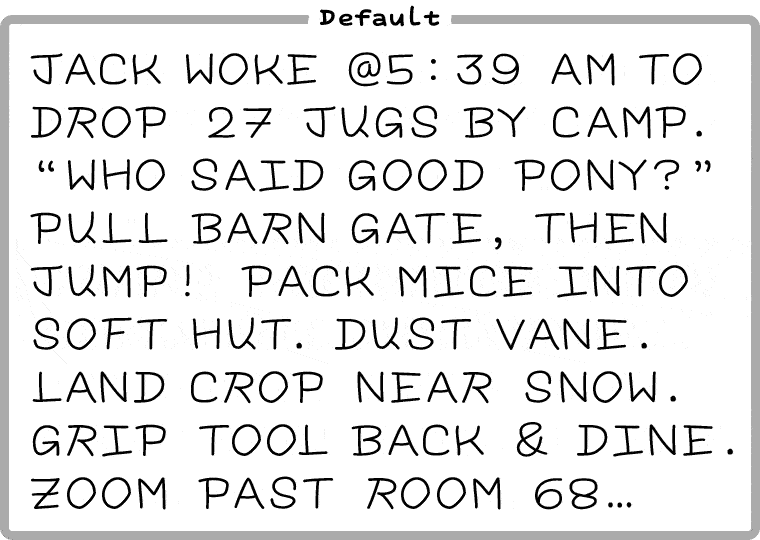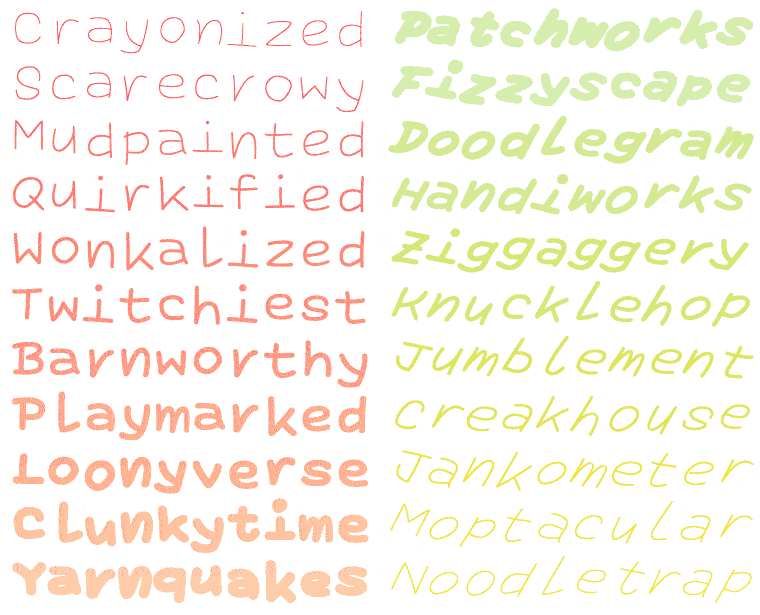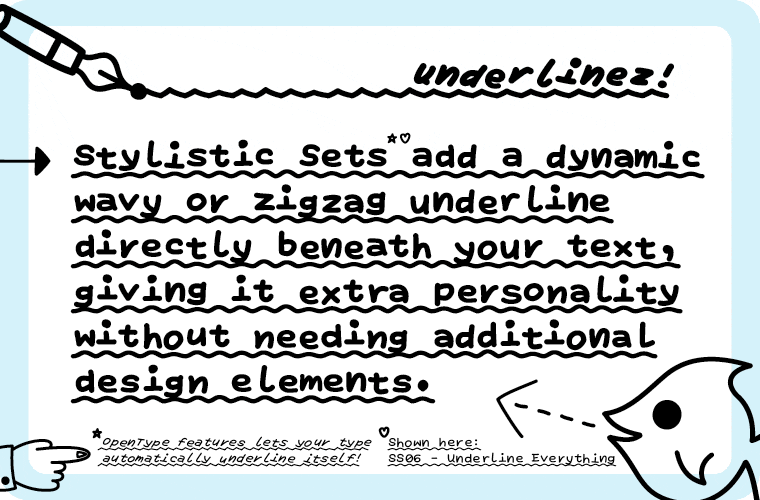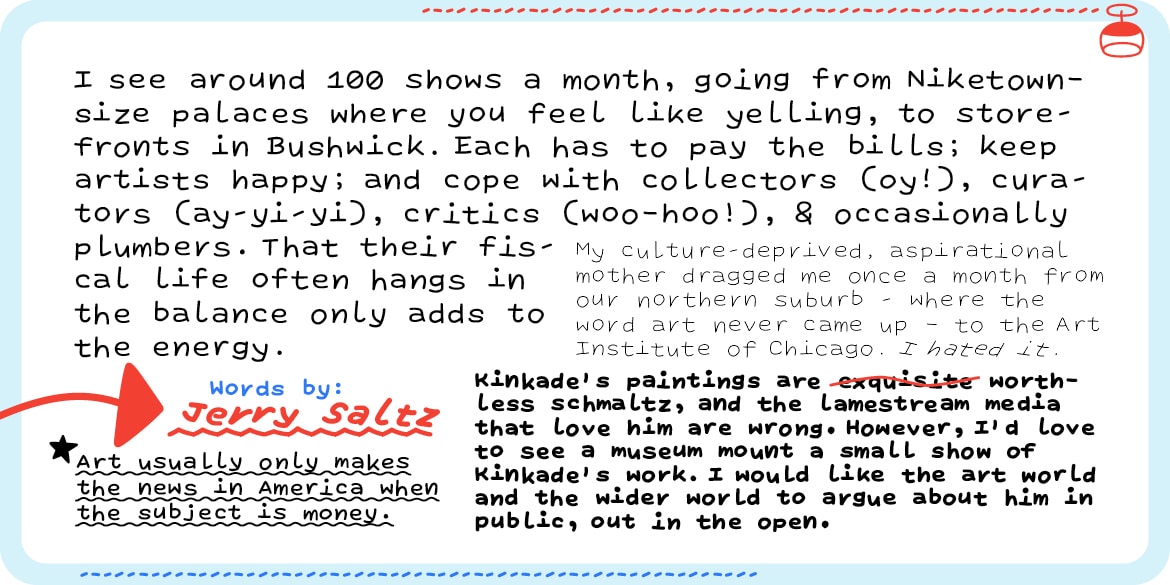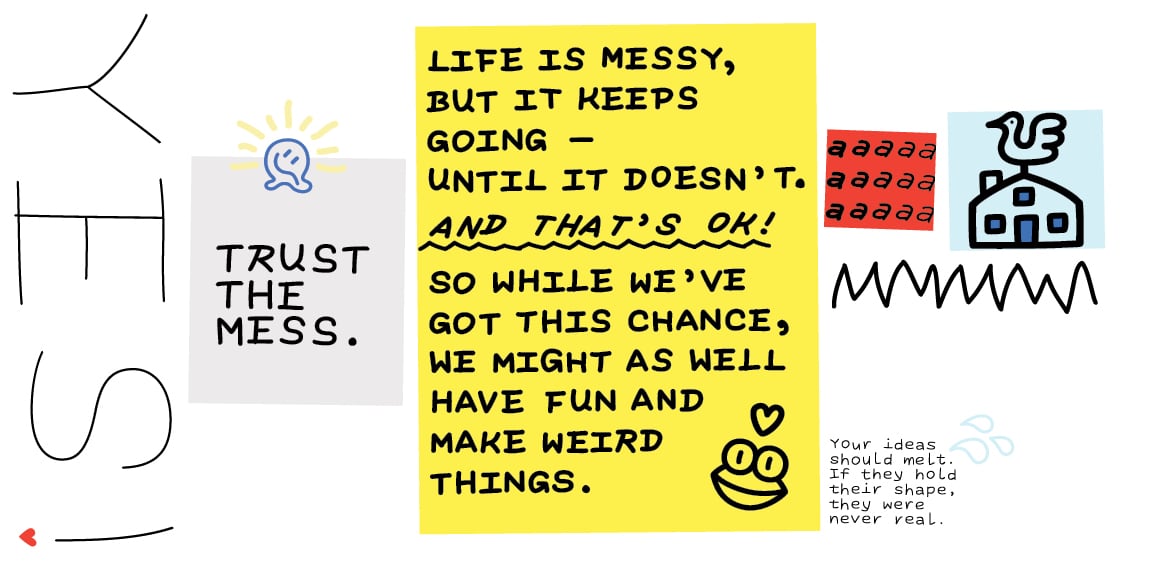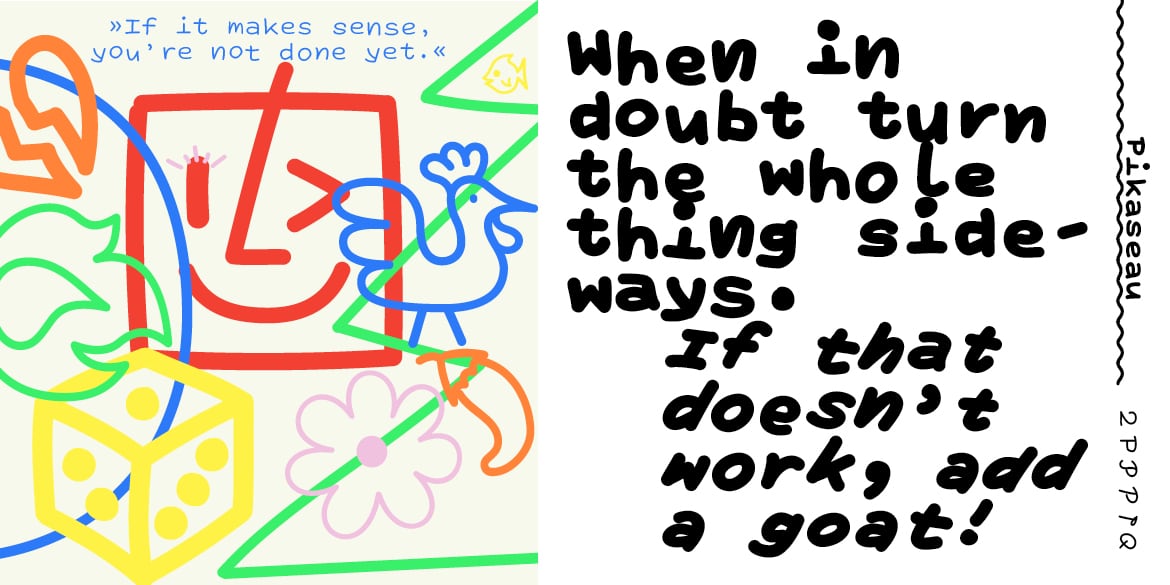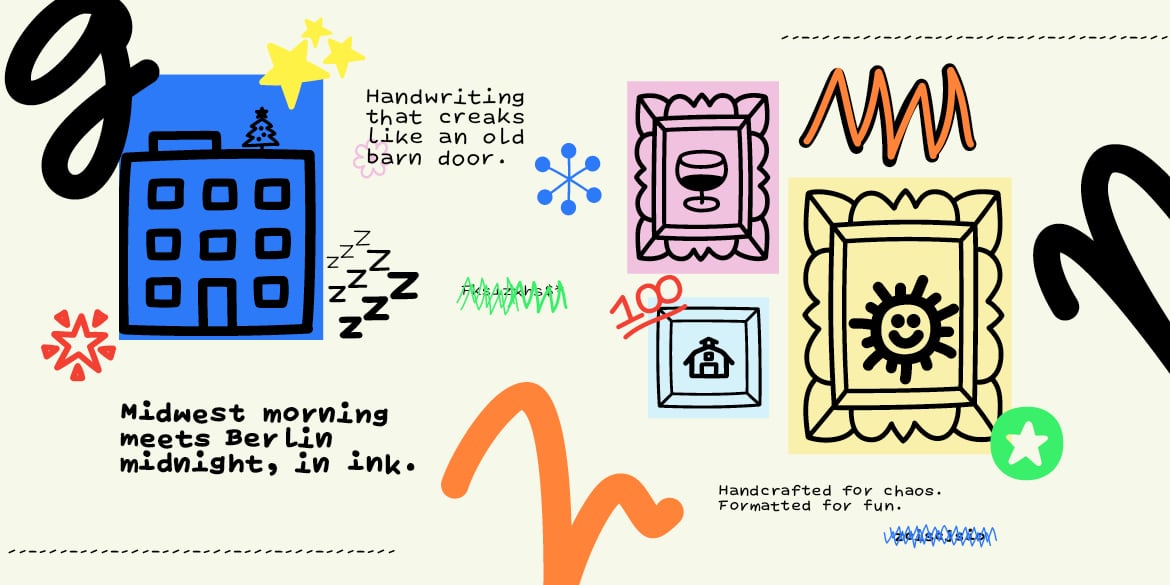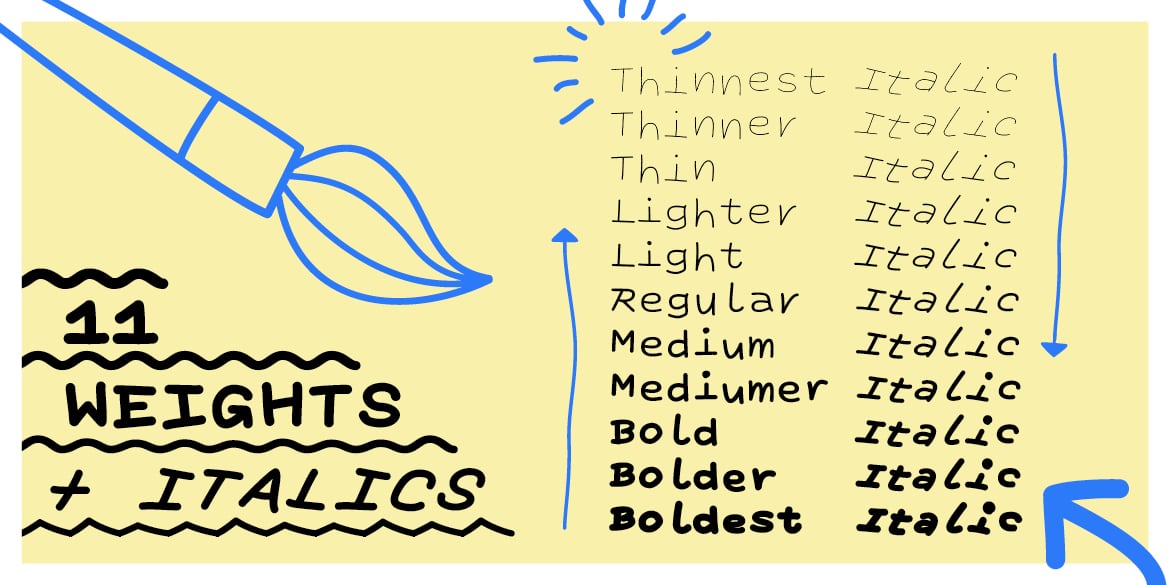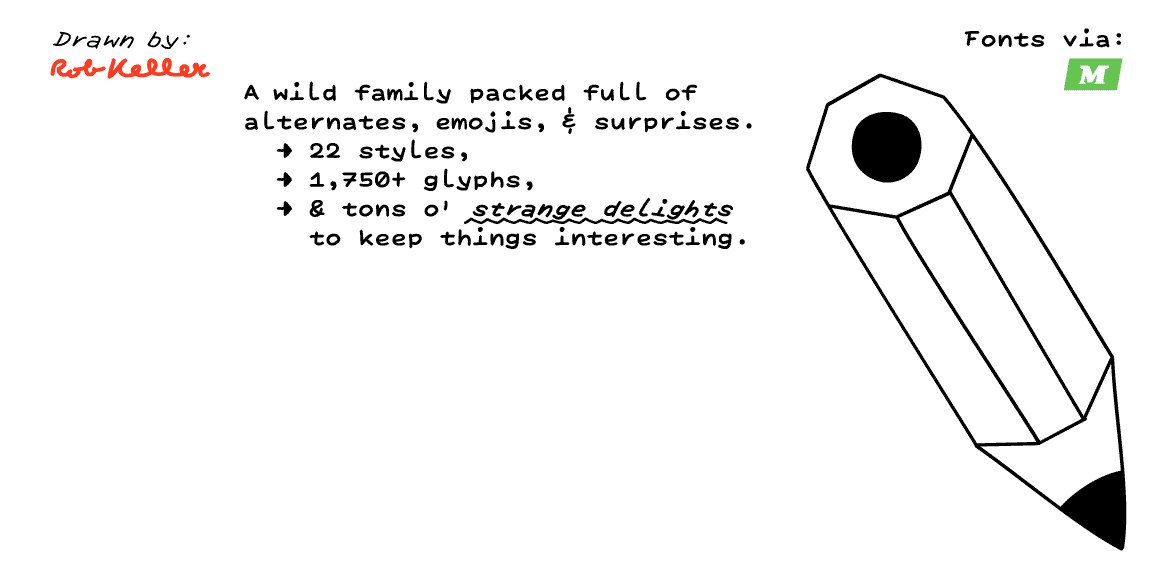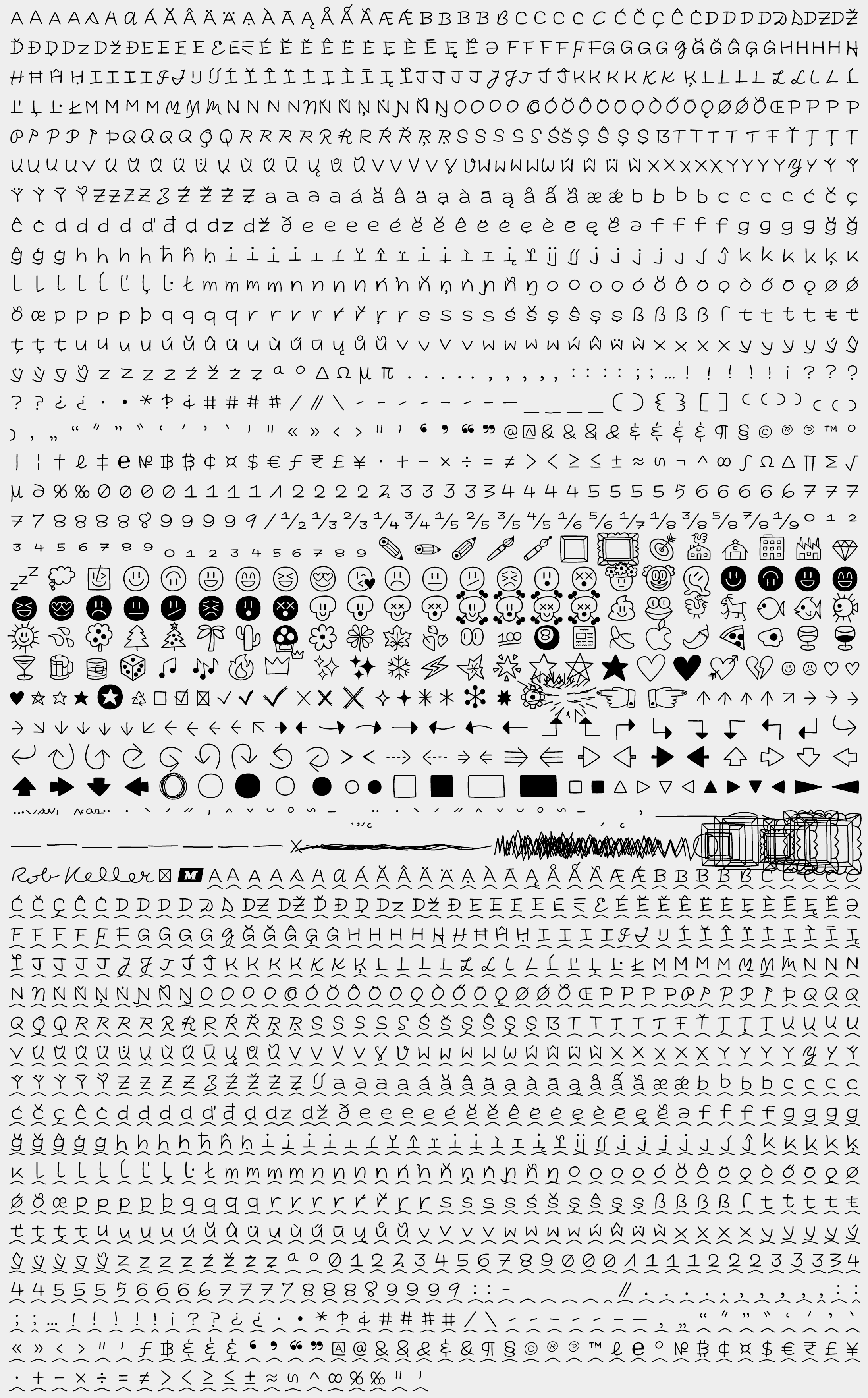
A Hand-Drawn Font by Mota Italic
This is A Hand-Drawn Font™ – a wild typographic experiment where imperfection meets innovation. It isn’t just another quirky handwriting font, it’s a toolkit for designers who are bored of playing it safe and ready to get weird.
“Looks Like It Was Made by a Human”… Because It Was.
A Hand-Drawn Font started as handwritten markings on tools and sketchbooks so they wouldn’t get lost. That everyday scrawl, from an undiscovered artist, was never planned to become a typeface. But while working on a personal zine project, he began converting those distinctive letters into a font — and over two years, they slowly evolved into this massive family. A Hand-Drawn Font carries all that history & personality, and now it’s expanded into eleven weights and jam-packed with features, it’s ready for whatever you want to throw at it.
A Cast of Characters (Literally)
The multiple versions of the basic alphabet are just the beginning. Dig deeper and you’ll find special alternates inspired by the handwritings of iconic artists — Calder, Kahlo, Basquiat, Grandma Moses and a bunch more. It’s part homage, part typographic mischief. Drop these alternates into your work for instant vibe and unexpected charm.
Animation showing a paragraph of text changing with different styles of Artist letters.
Structured but with Lots of Twists
Eleven weights: wispy hairline to extra bold, are there to give you subtle control of texture and color. The (mostly) monospaced skeleton gives structure, while the inconsistent spacing and hand-made quirks keep things lively and looking humanistic. It’s flexible but odd, tidy but unhinged — and surprisingly usable.
Colorful animation of all the 11 weights of A Hand Drawn font. 22 words, each in a different upright or italic style and cycling through all the various weights.
Clear. Loud. Weird.
From wild italics that slope AND rotate, to built-in wavy and zigzag underlines, A Hand-Drawn Font offers tools for expressive typography. You’re not just styling text — you’re giving it a voice. There are also hundreds of arrows, symbols, and emojis to help your designs shout, whisper, or mumble with style. This family doesn’t just support expression, it encourages it.
Illustration showing the built in squiggly underline feature that gives either wavy or zig-zag underlines automatically.